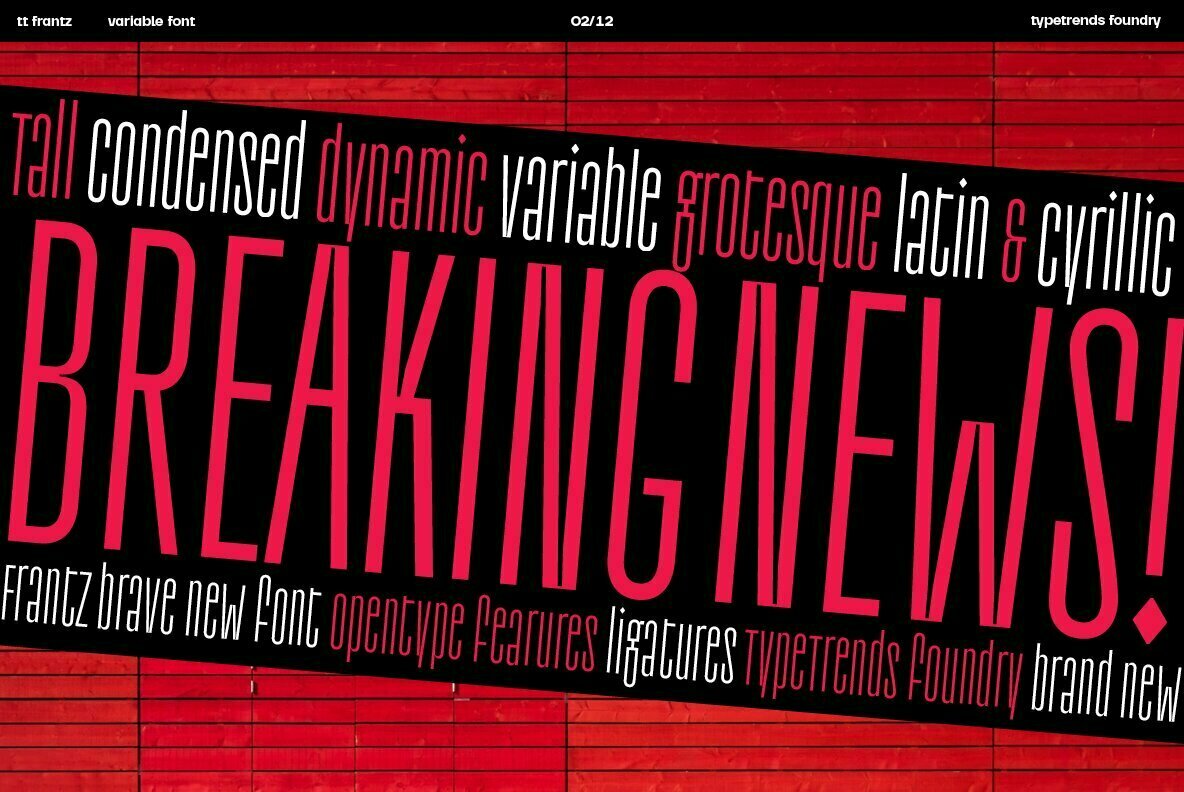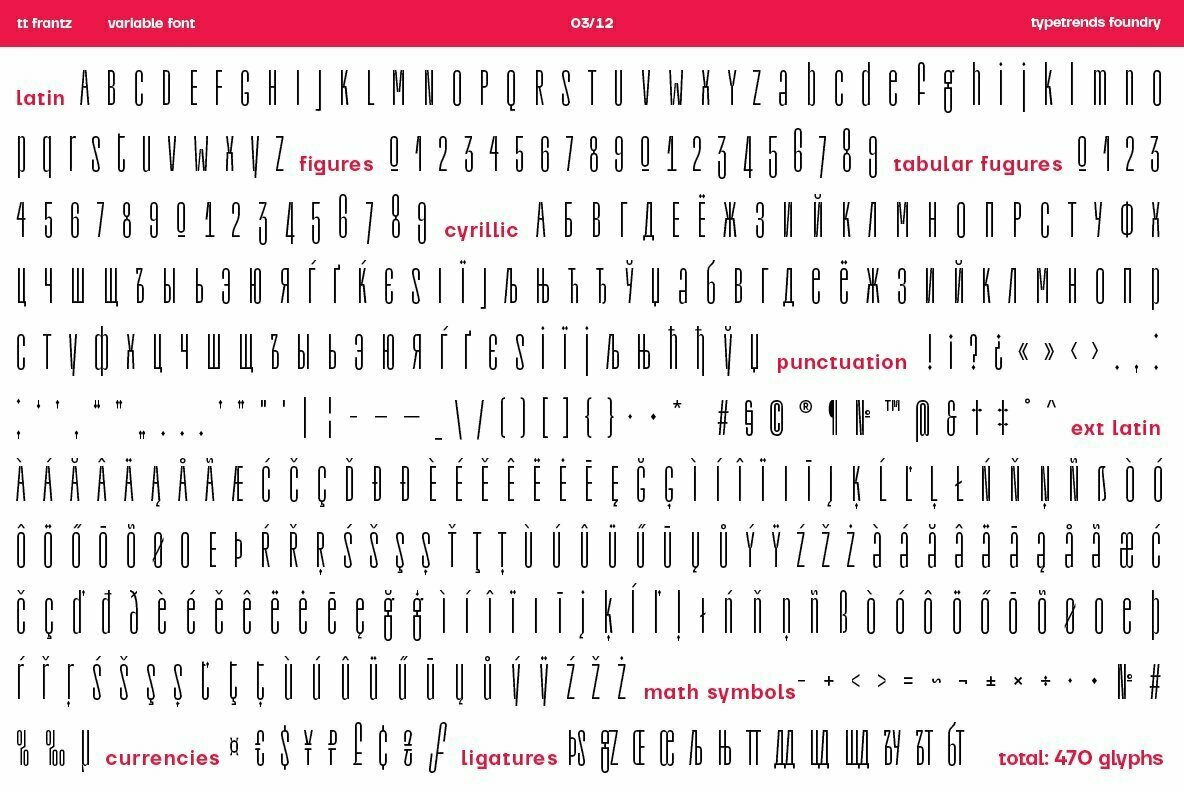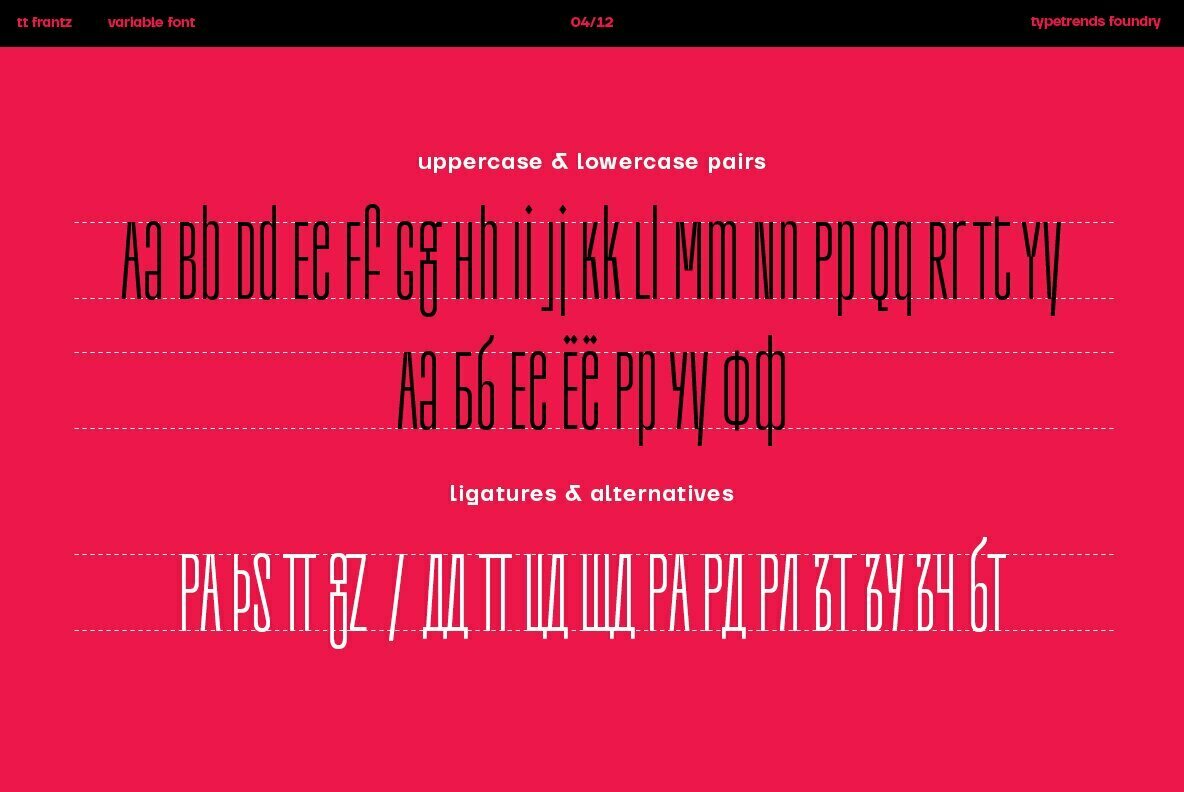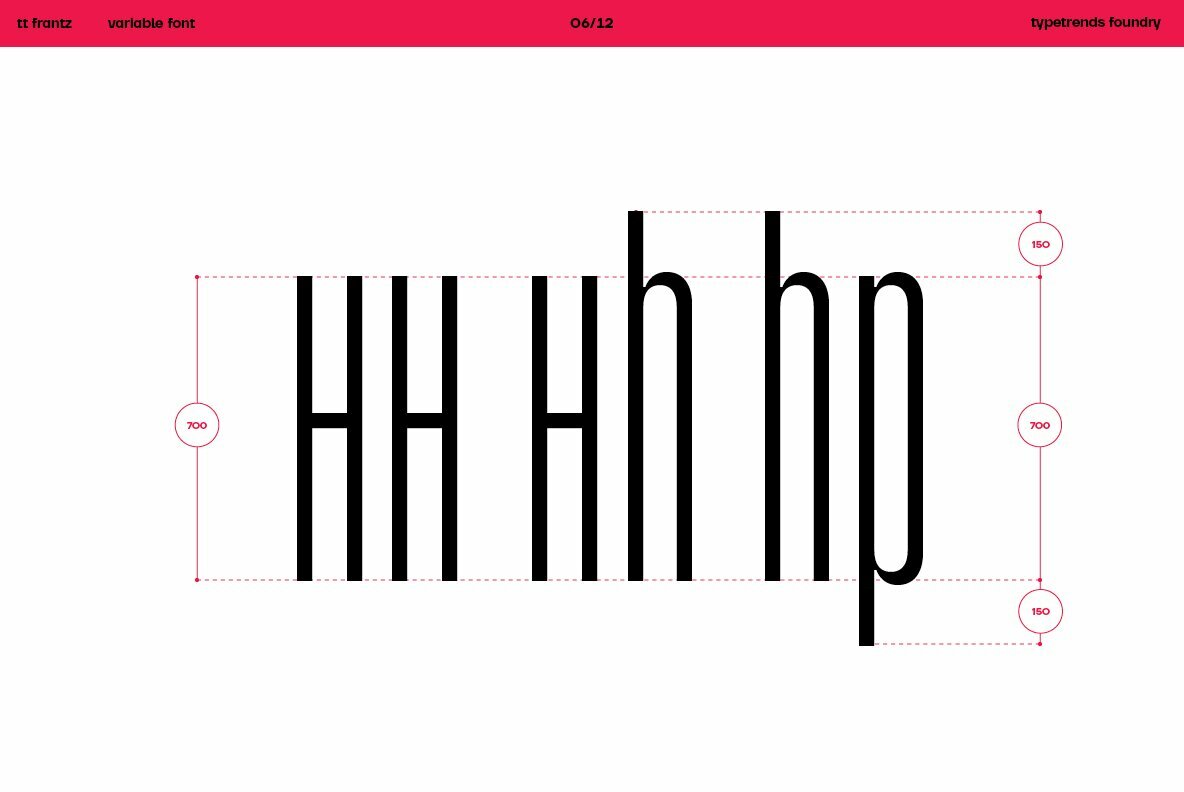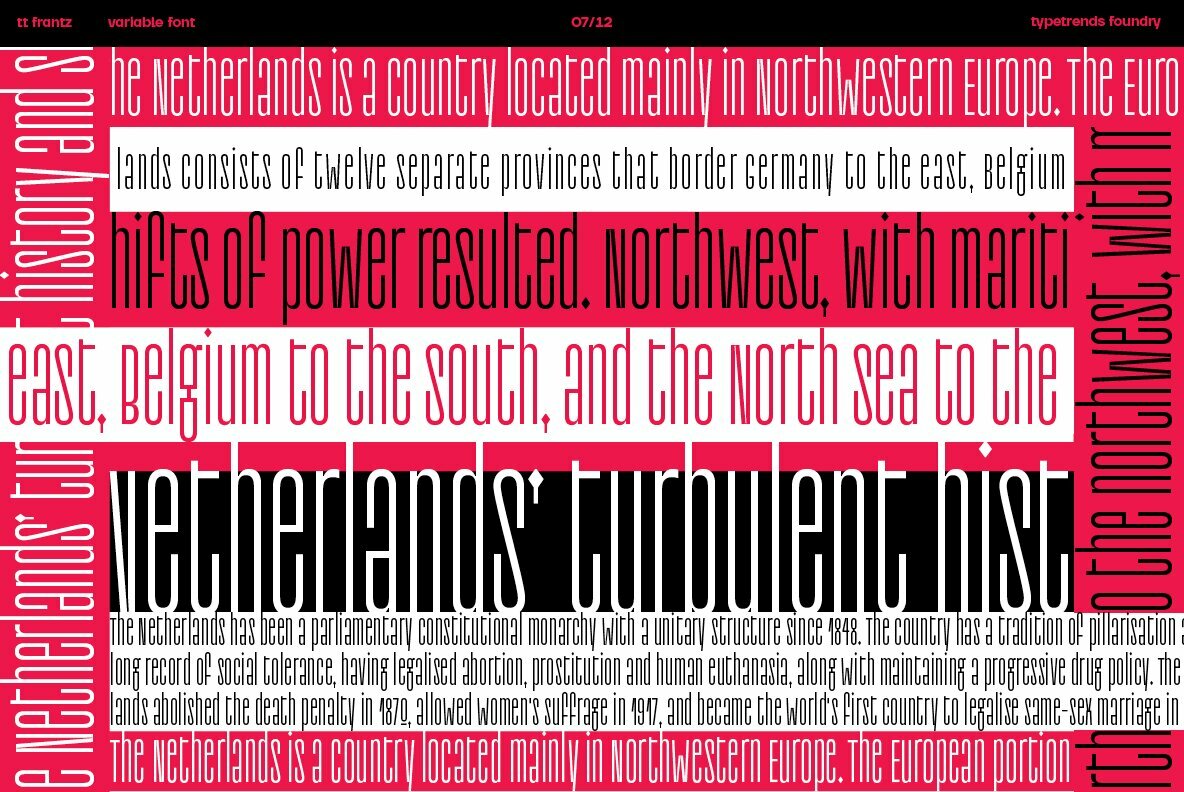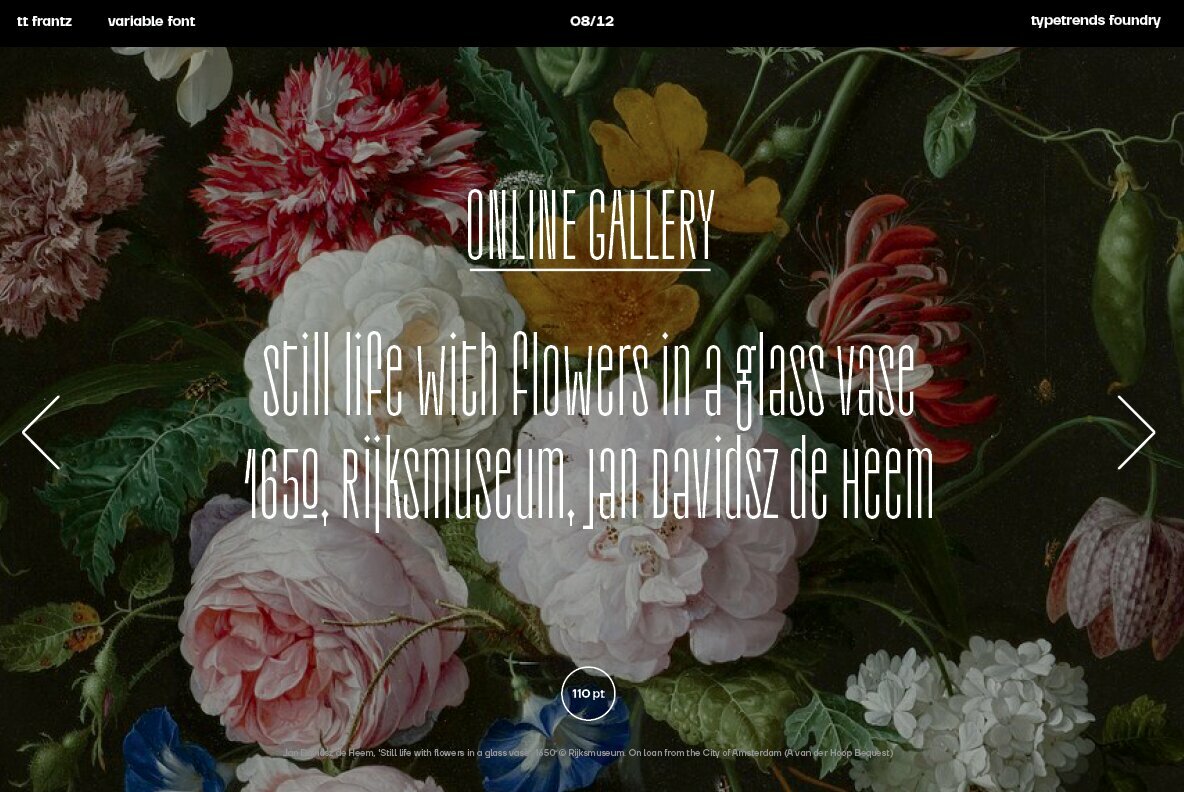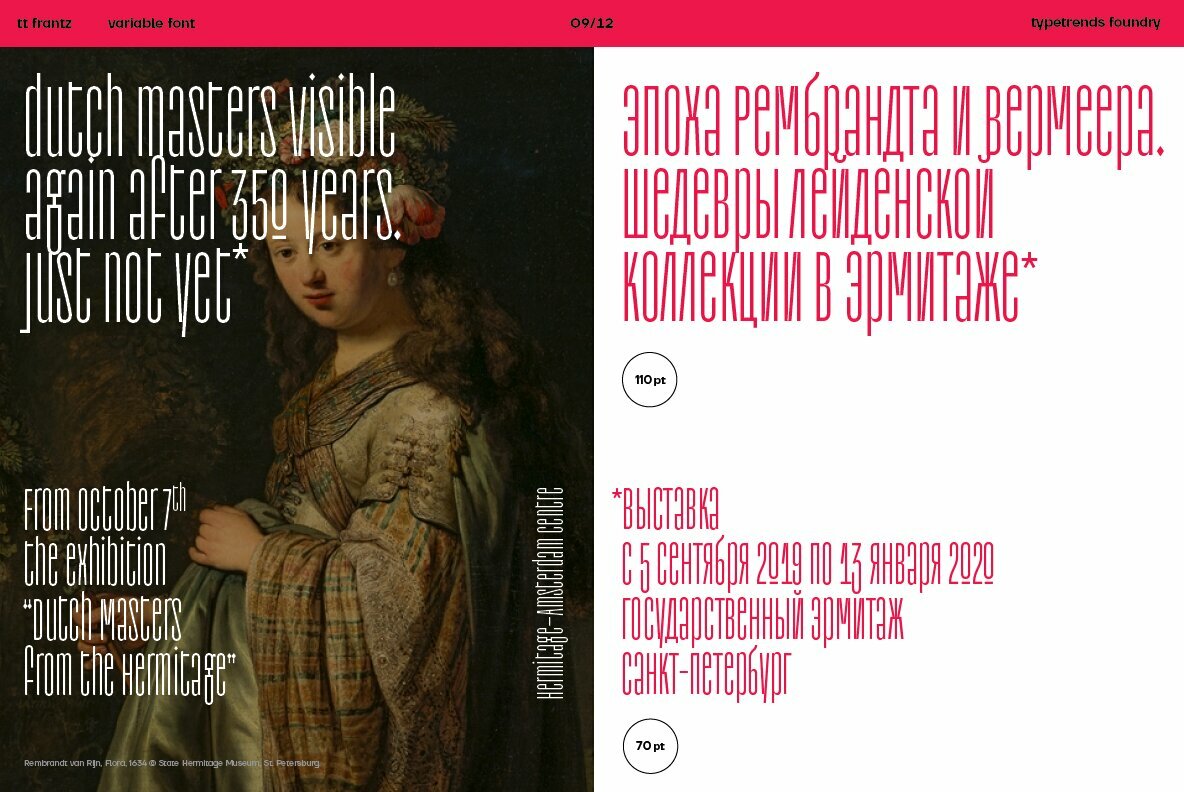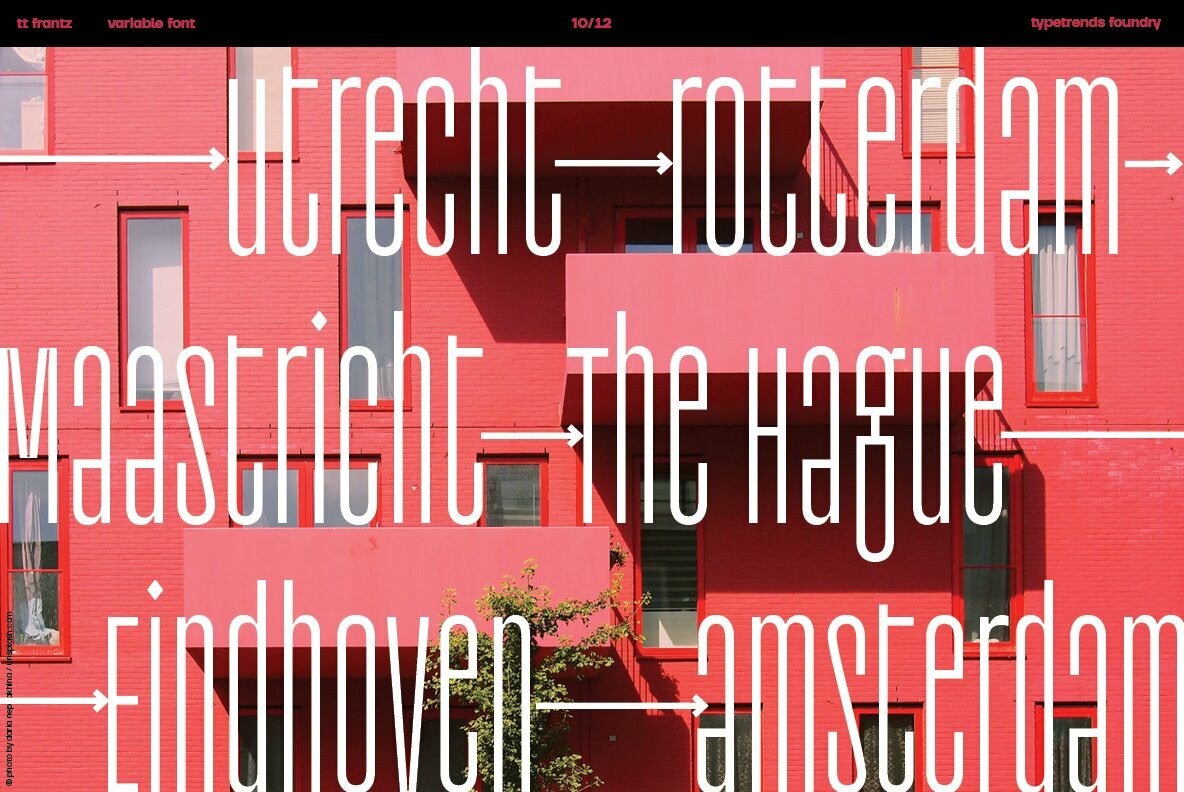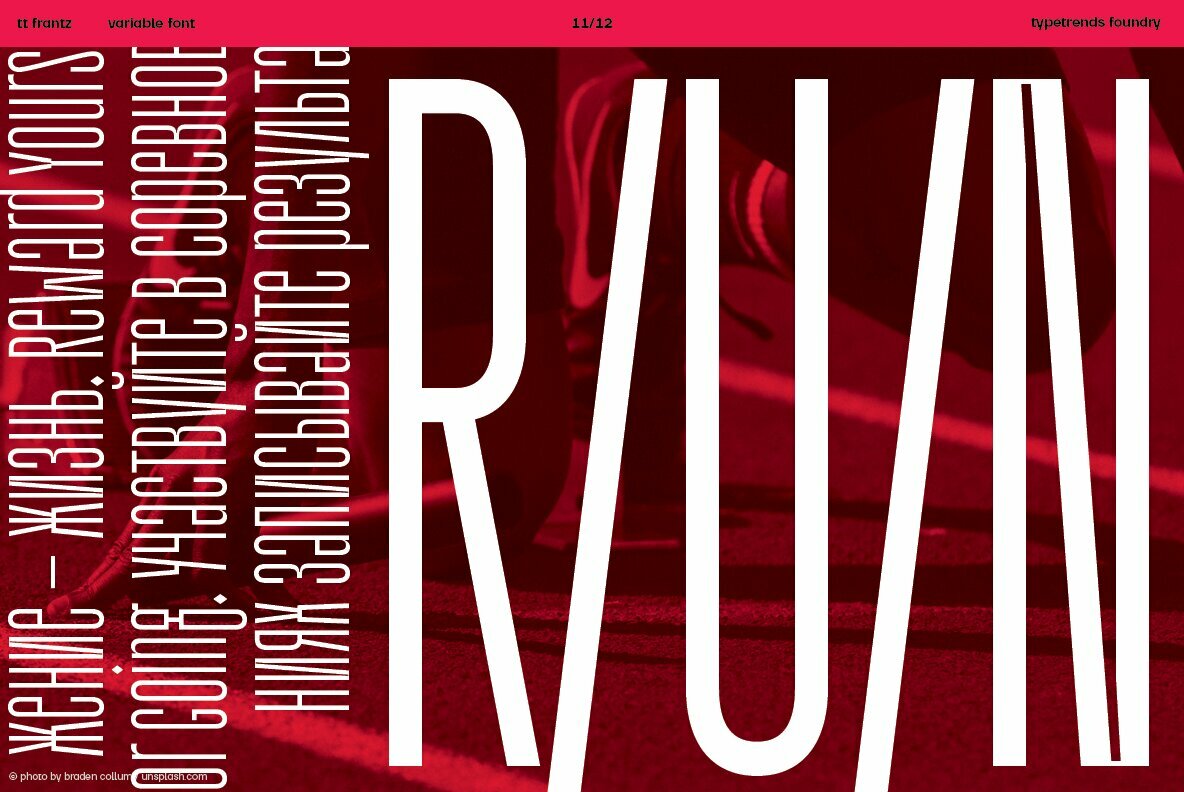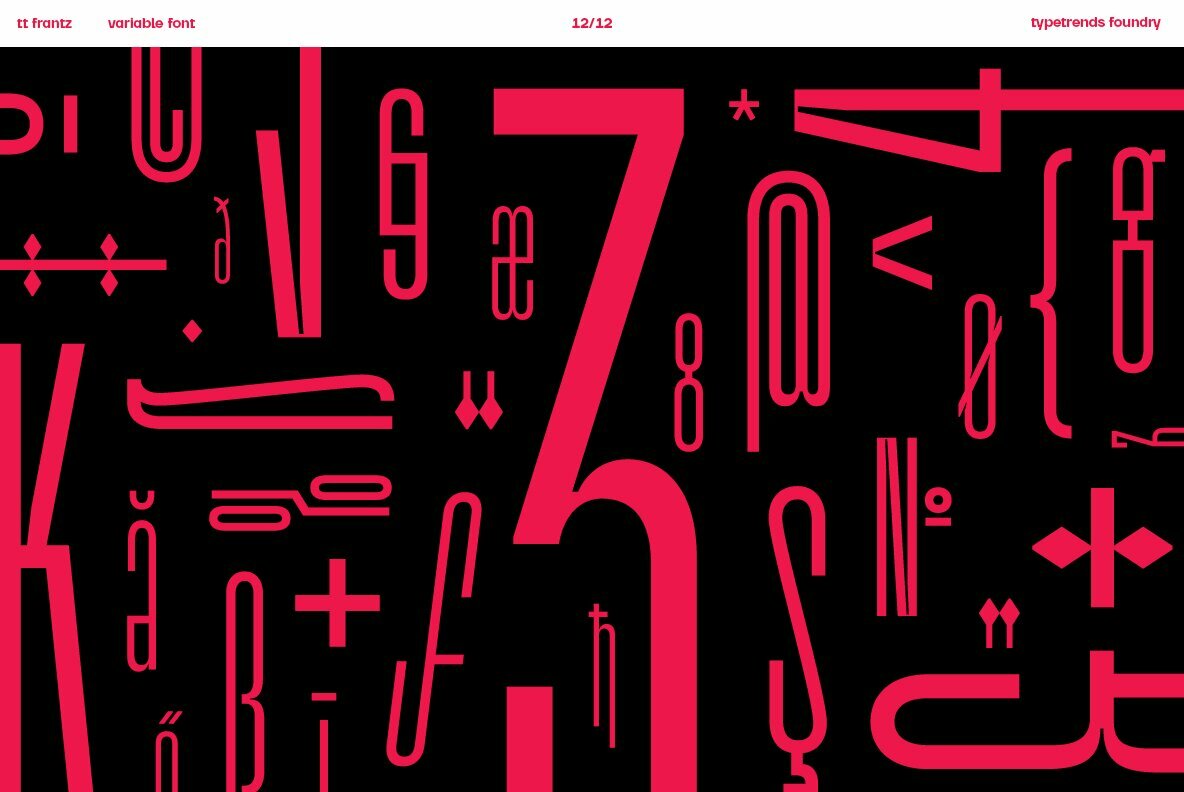
TT Frantz Font
TT Frantz is an experimental variable font, distinguished by its slimness and lightness. The variation in the font affects the change in the height of the mean line - by moving the axis adjustment slider you can easily raise or lower the mean line of the font.
In TT Frantz, you can find small references to the art deco aesthetics, which are expressed in significantly lowered or, conversely, heightened waist of the letters. In addition, depending on the position of the axis adjustment slider, the closedness of the aperture changes for some letters.
In order to preserve the main feature of the font—the change in the height of the main line—we made lowercase characters as tall as uppercase ones, but at the same time we kept small kerns. An interesting fact is that in Cyrillic letters з с а е, the variability of the aperture follows a different scenario in comparison with their Latin sisters.
When working on TT Frantz, we tried to make it so that when changing the variability, the width of the characters would not change, and the font would remain monospaced. And in order to avoid holes in the set, we made contextual alternates and several ligatures.
Frantz consists of 470 glyphs, and in addition to broad language support (Latin and Cyrillic) it can offer standard and old-style figures, including their tubular versions, as well as ligatures.
do not despair—even if you do not have access to the necessary software, you still have the opportunity to use TT Frantz in your projects. Especially for you, we have prepared three separate non-variable styles (Frantz A, Frantz B, Frantz C), each of which is responsible for a certain location of the mean line of the font and where this line is already fixed in a certain position (high, medium and low).